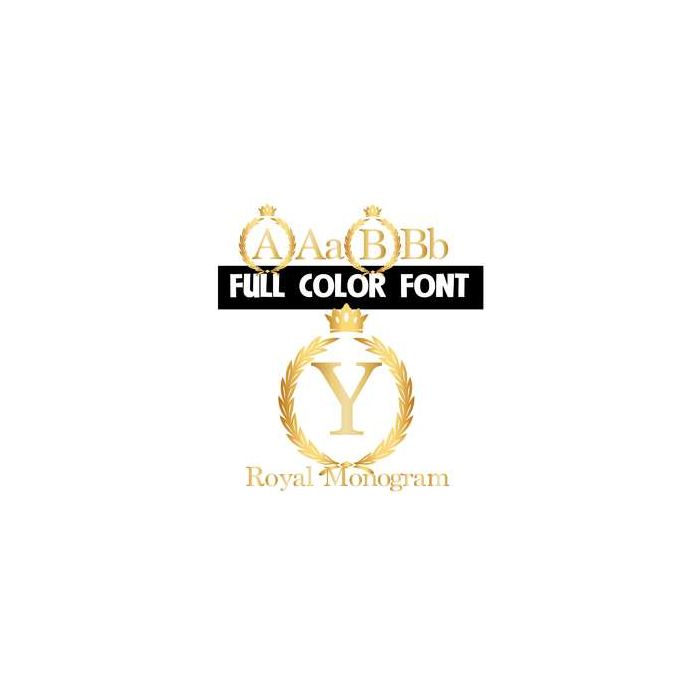
This full-color font features serif letters surrounded by heraldic imagery. The lowercase is just without the heraldry. There is a true alt lowercase you can access through your system's character map or using Silhouette's glyph map.